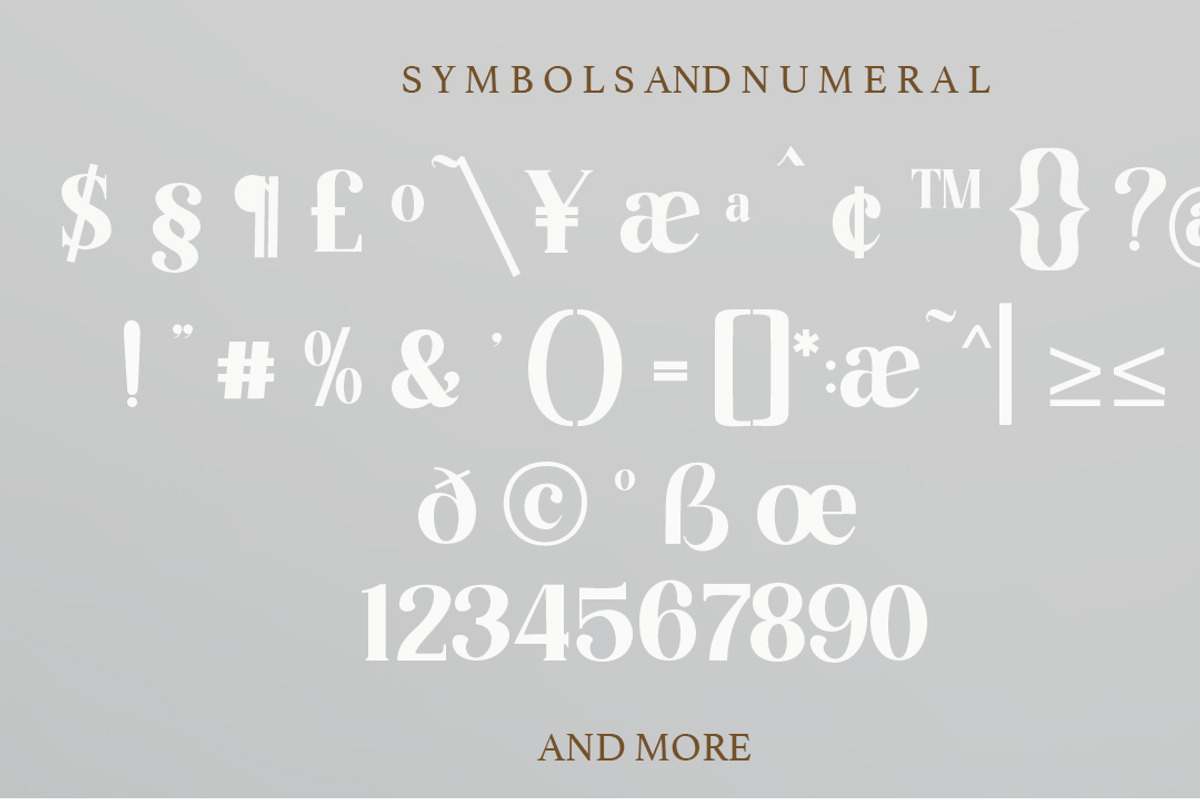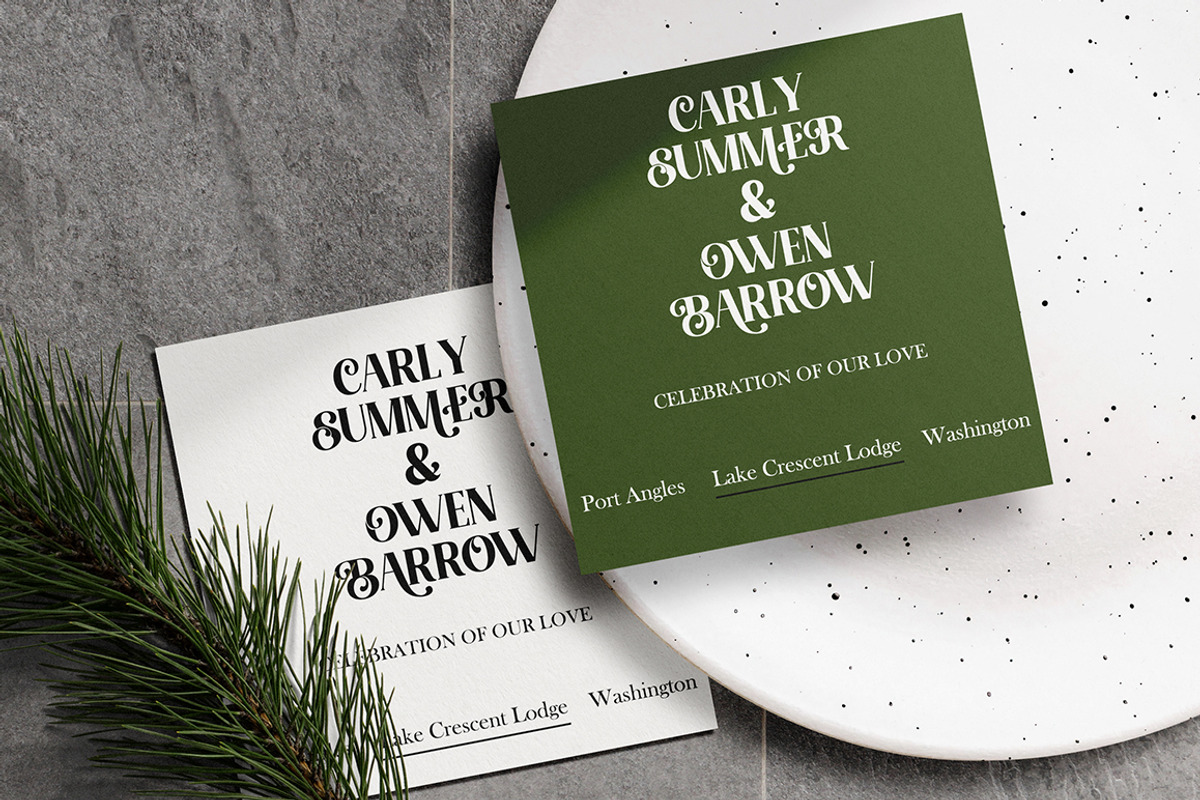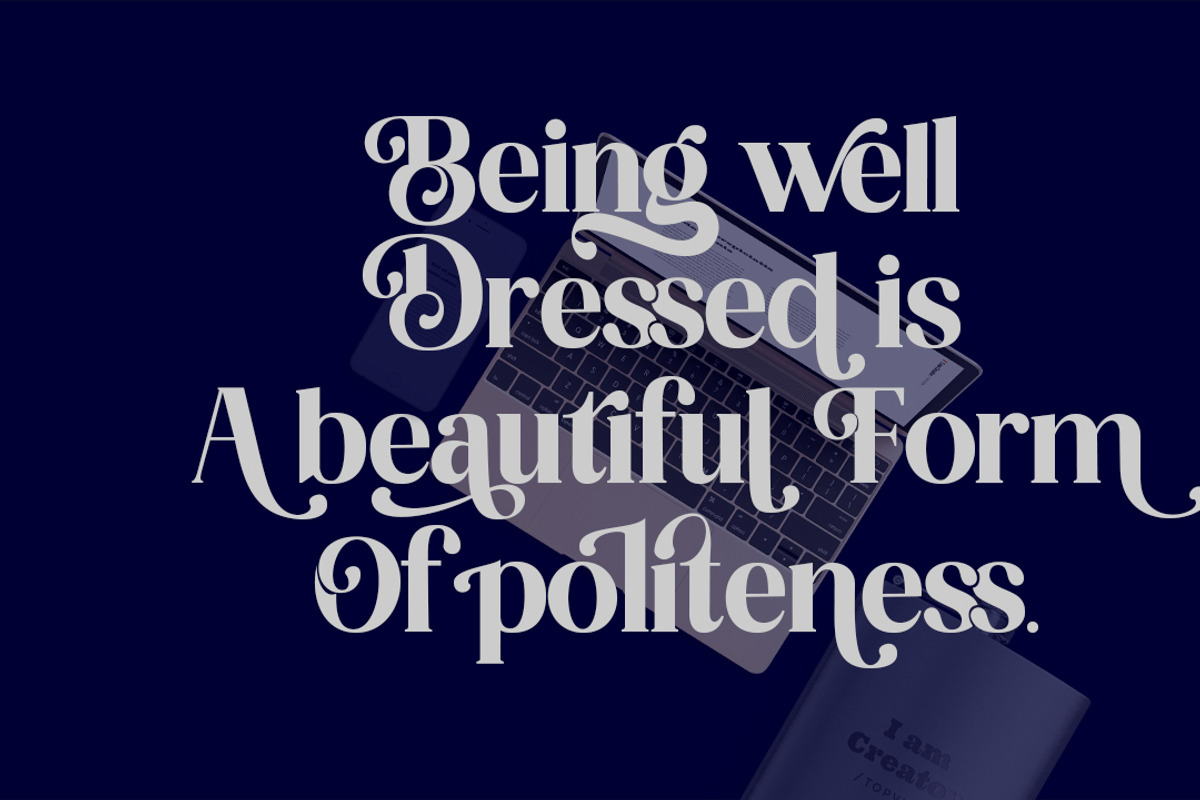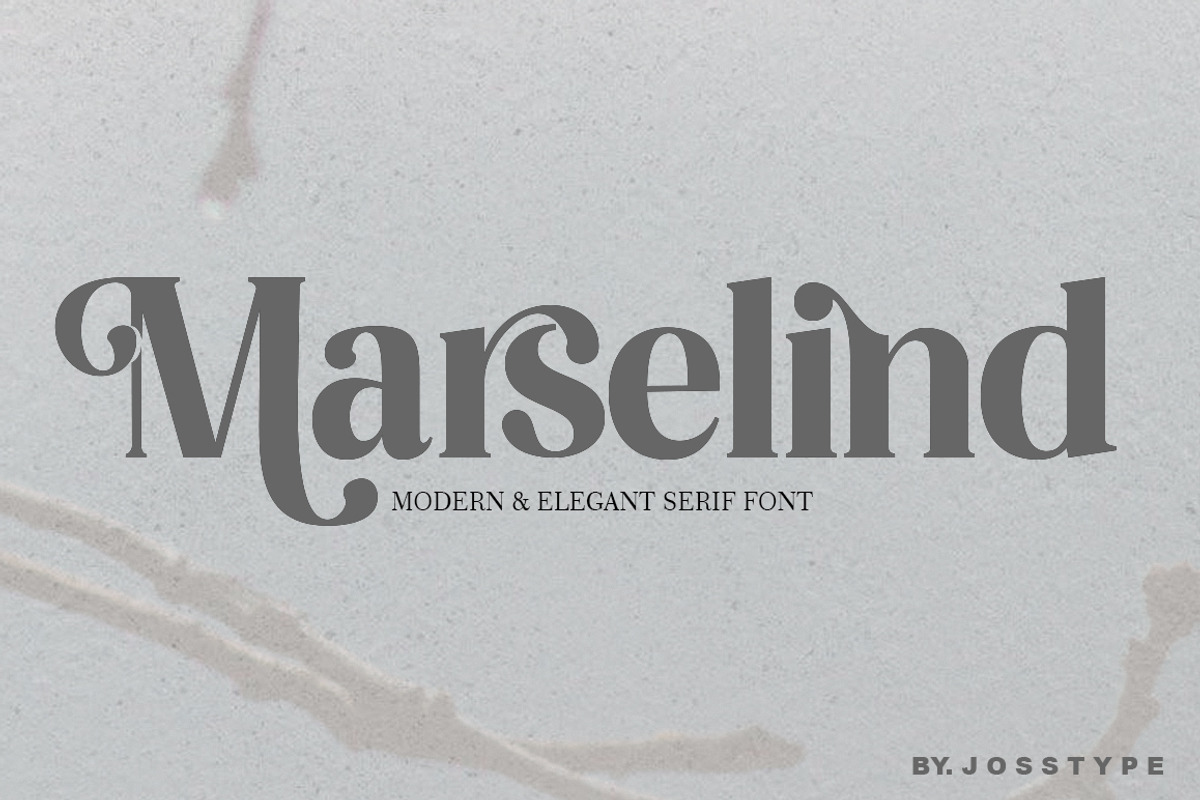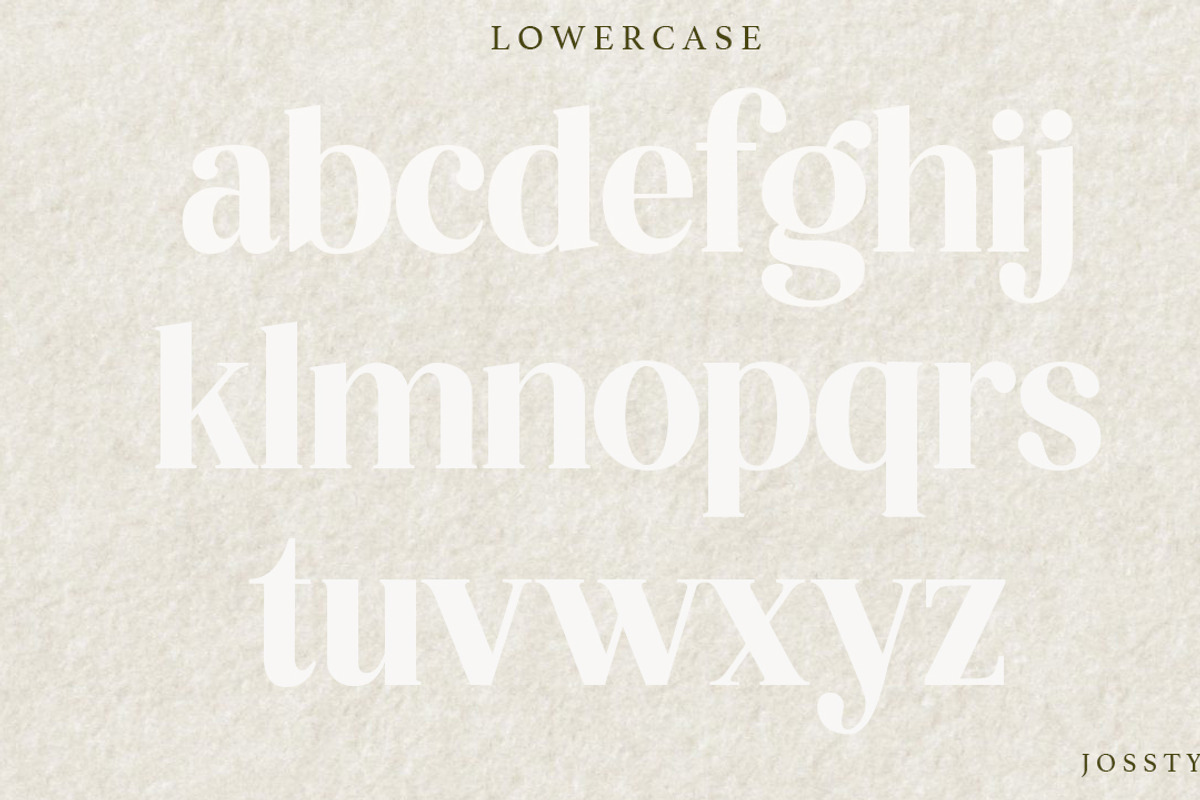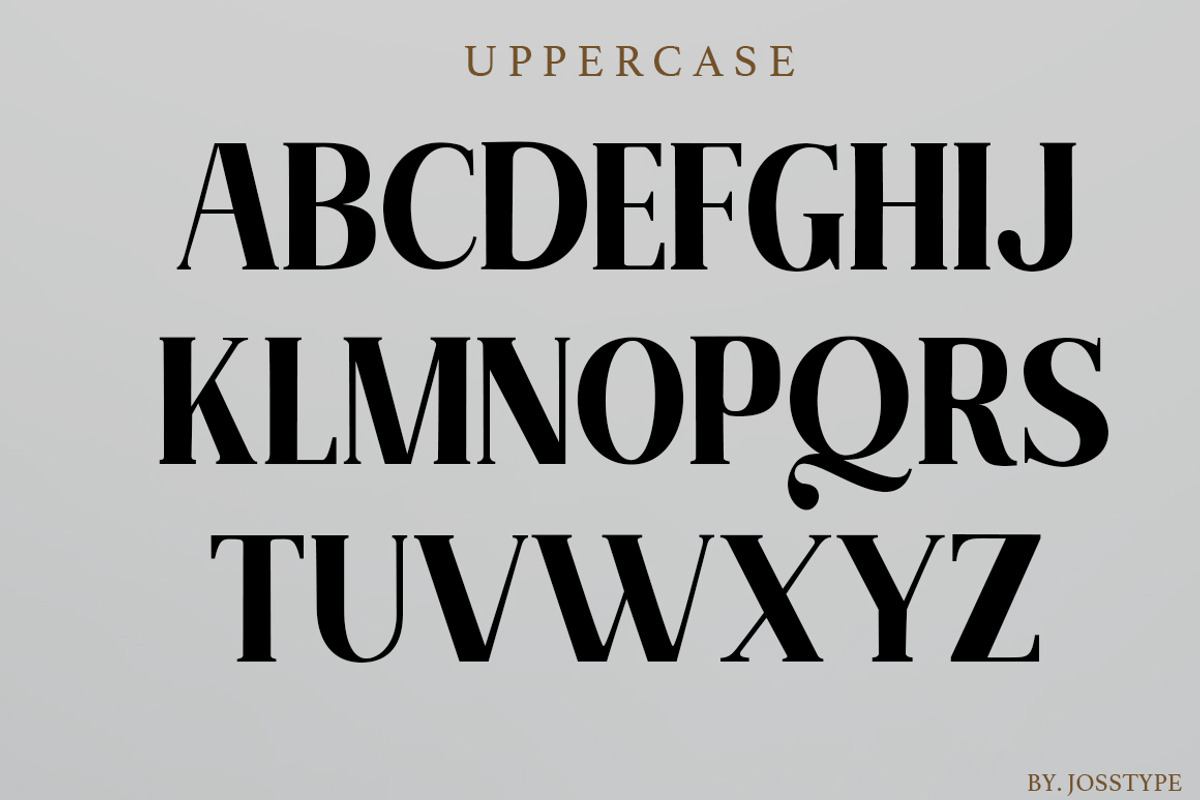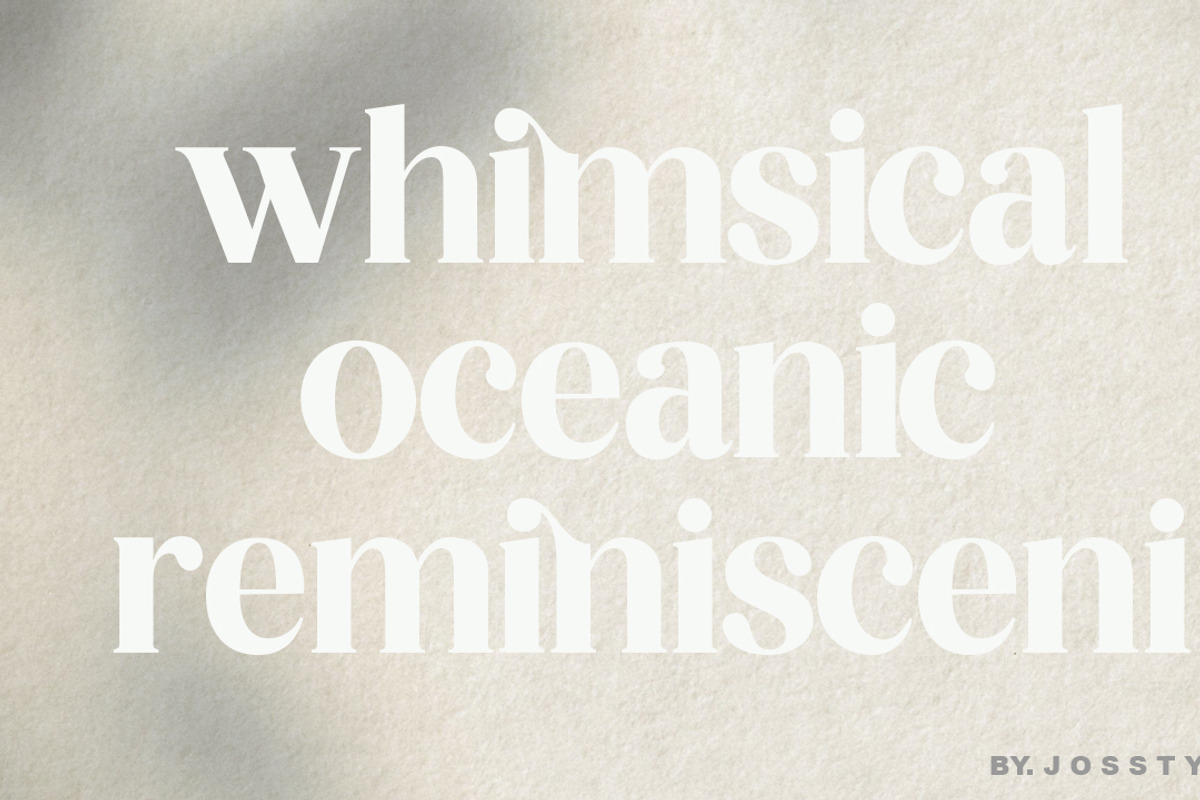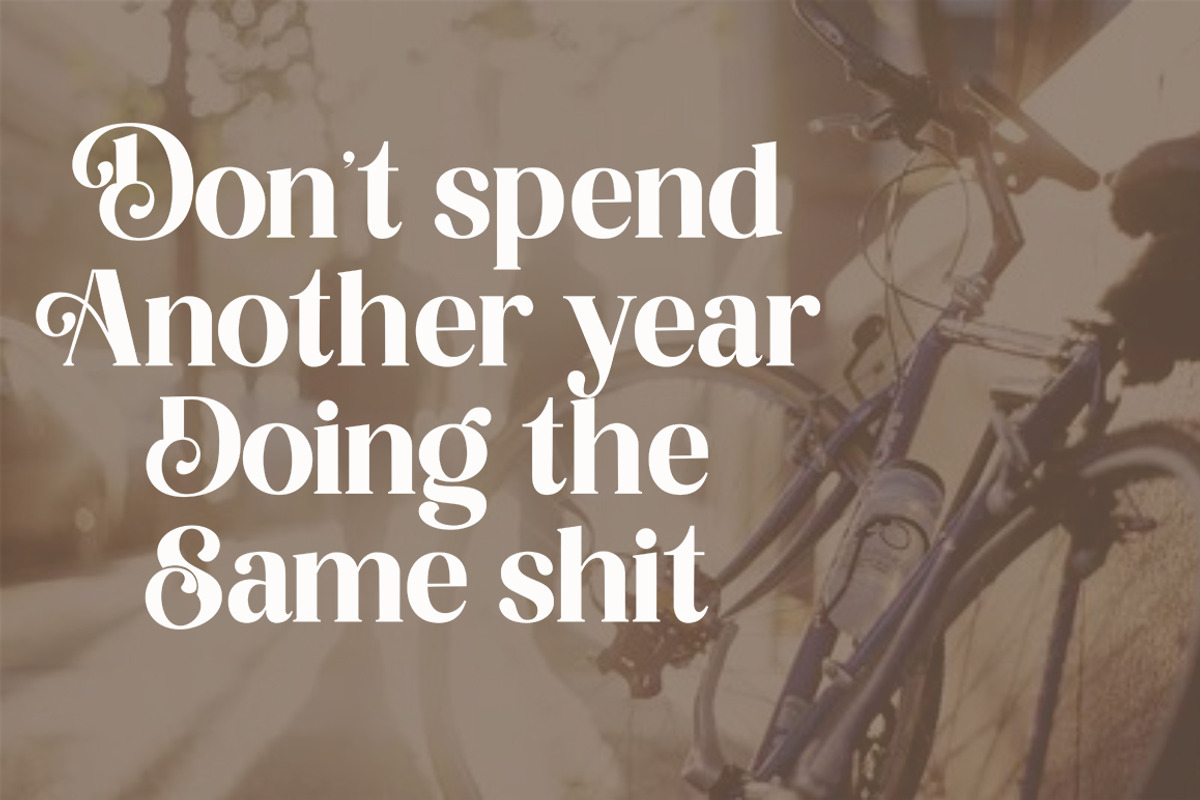
Marselind Serif font
Marselid Serif. Marselid Serif.is a Serif Display Font with a modern, classy, fun, unique and versatile style. It looks amazing at display size and is easy to read in text size. This font also has lots of unique alternatives and binders that will make for stunning design projects. Marselid Serif. works well for branding projects, logos, wedding designs, social media posts, advertisements, product packaging, product designs, labels, photography, watermarks, invitations, or any project you are working on.